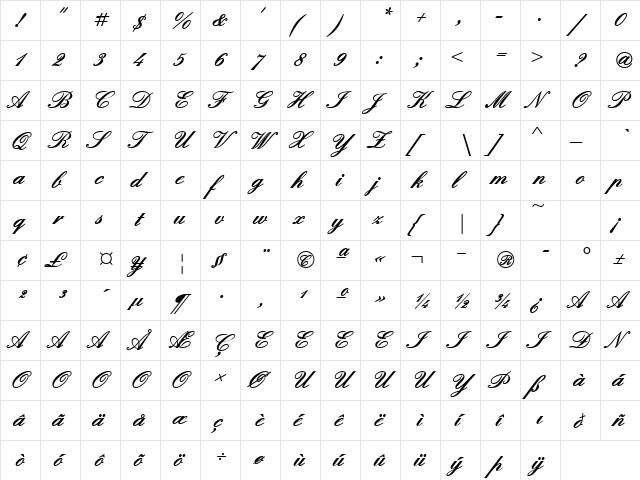
Quadrille Script Black Ssk Bold
Design Context for Quadrille Script Black Ssk Typeface
Quadrille Script Black Ssk flows with the natural rhythm of handwritten lettering, making it ideal for designs that call for warmth and personal expression. The heavy weight commands attention and anchors typographic hierarchies.
Font Pairing: Combine Quadrille Script Black Ssk with a simple geometric sans for maximum contrast — the tension between flowing curves and clean structure is a classic typographic pairing.
Pro Tip: Pair Quadrille Script Black Ssk with a clean sans-serif for supporting text. The contrast between fluid script and geometric structure creates an elegant typographic hierarchy.